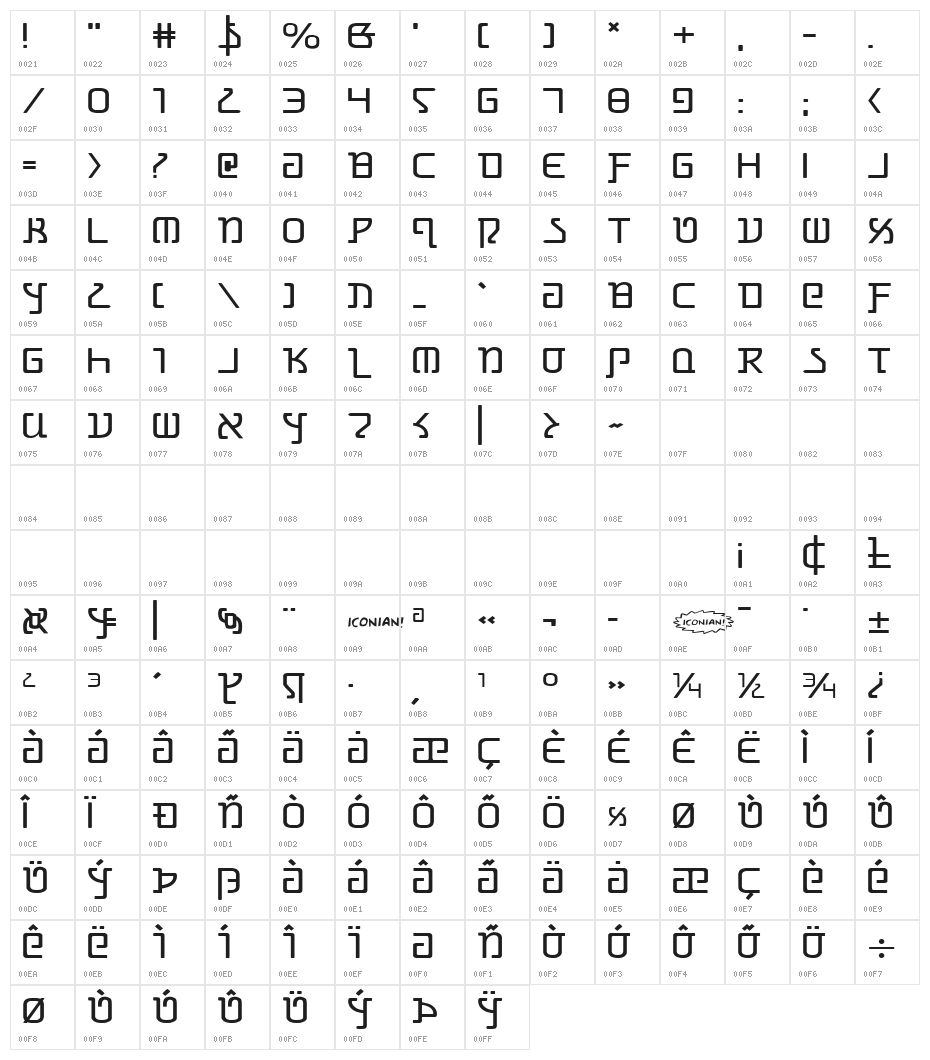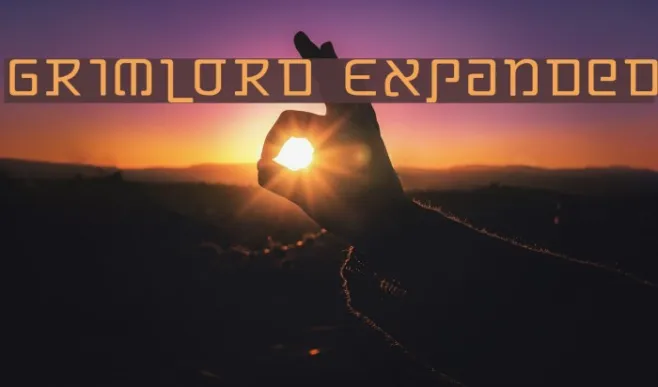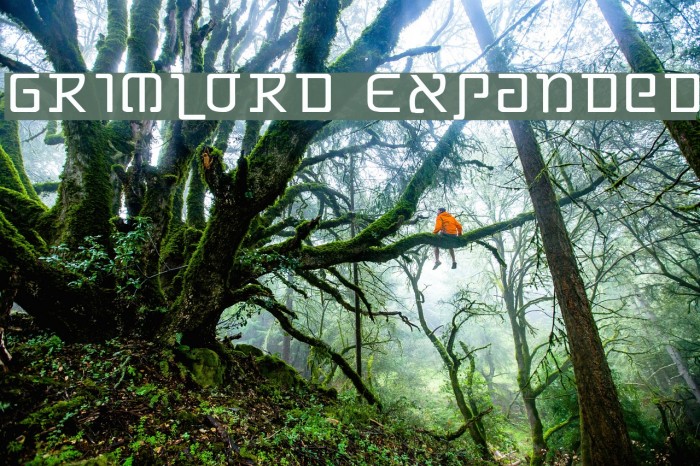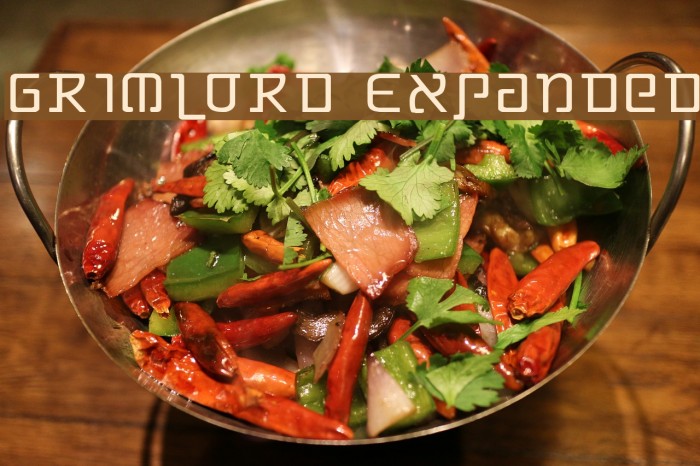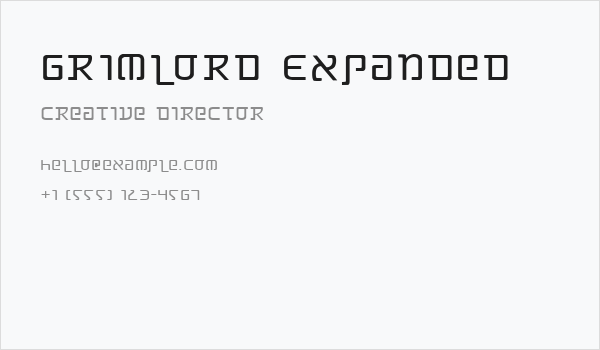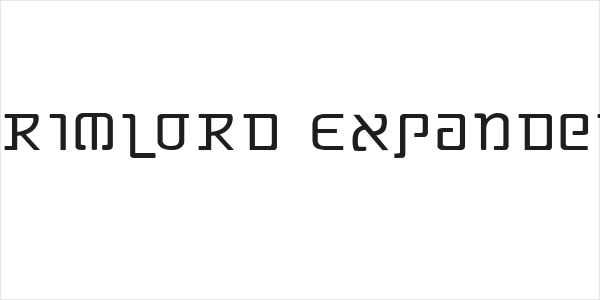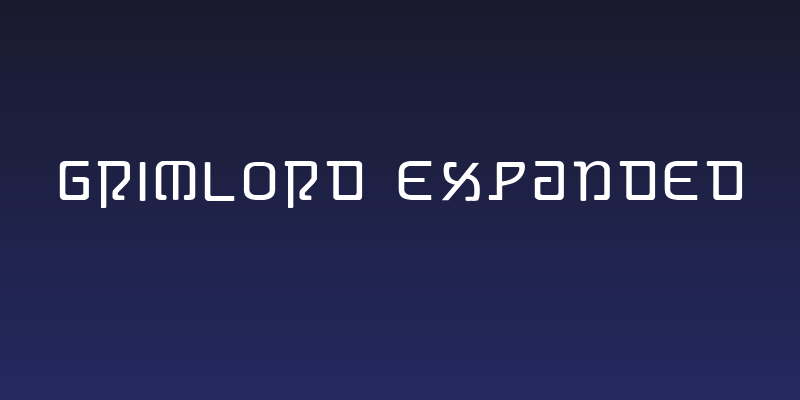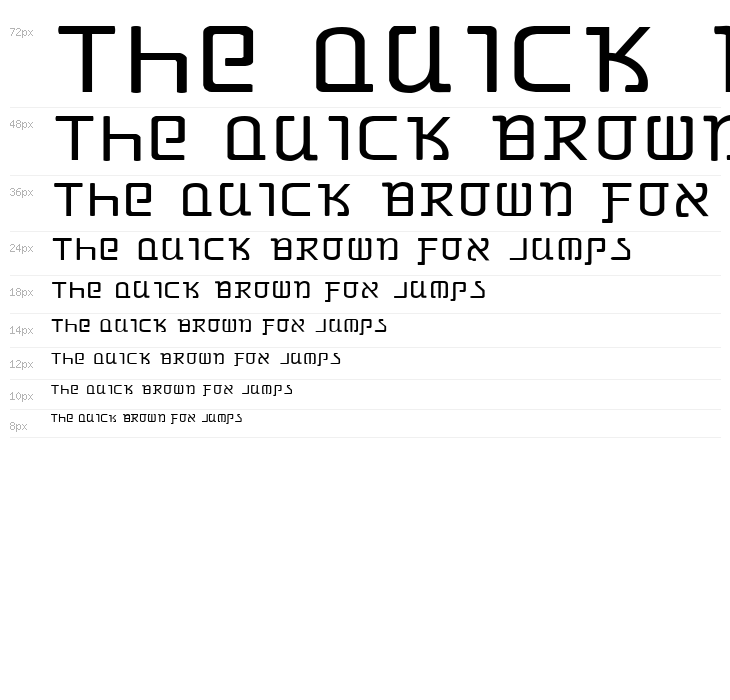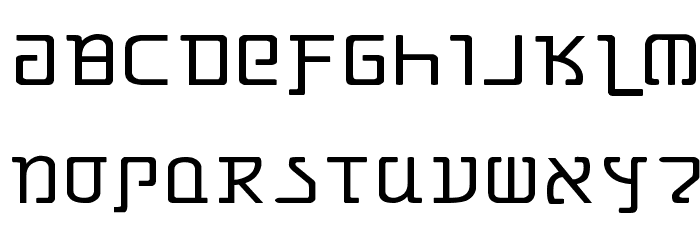
Grimlord Expanded Font
Grimlord Expanded Description
This font features a futuristic and geometric design, characterized by its bold and angular letterforms. The characters are constructed with a consistent stroke width, giving it a uniform appearance. The uppercase and lowercase letters share similar structural elements, enhancing the cohesive look. The numerals and special characters maintain the same stylistic approach, ensuring a seamless integration across different text elements. The font's expanded width adds a sense of modernity and space, making it suitable for attention-grabbing headlines and titles. Its unique style is both eye-catching and versatile, offering a distinct visual impact.
| Proposed Projects | Ideal for sci-fi themed designs, tech branding, video game titles, and modern posters. |